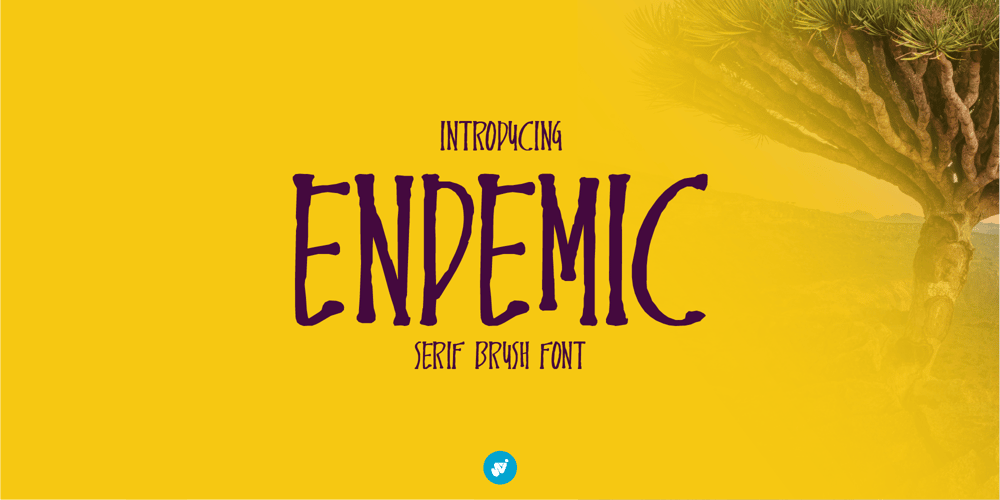
ENDEMIC Serif Font Family was designed by Wahyu Aji Prasetyo and published by WAP Type. ENDEMIC Serif contains 1 styles and family package options. “Endemic” font is perfect for ethnic movie or game titles. or for titles, cartoon-themed writing, because this font is in the serif category but not too stiff or formal.Features: Uppercase, Lowercase Punctuation & Number, Support in Mac and Windows OS Multilingual Support ÀÁÂÃÄÅÆÇÈÉÊËÌÍÎÏÐÑÒÓÔÕÖØÙÚÛÜÝ